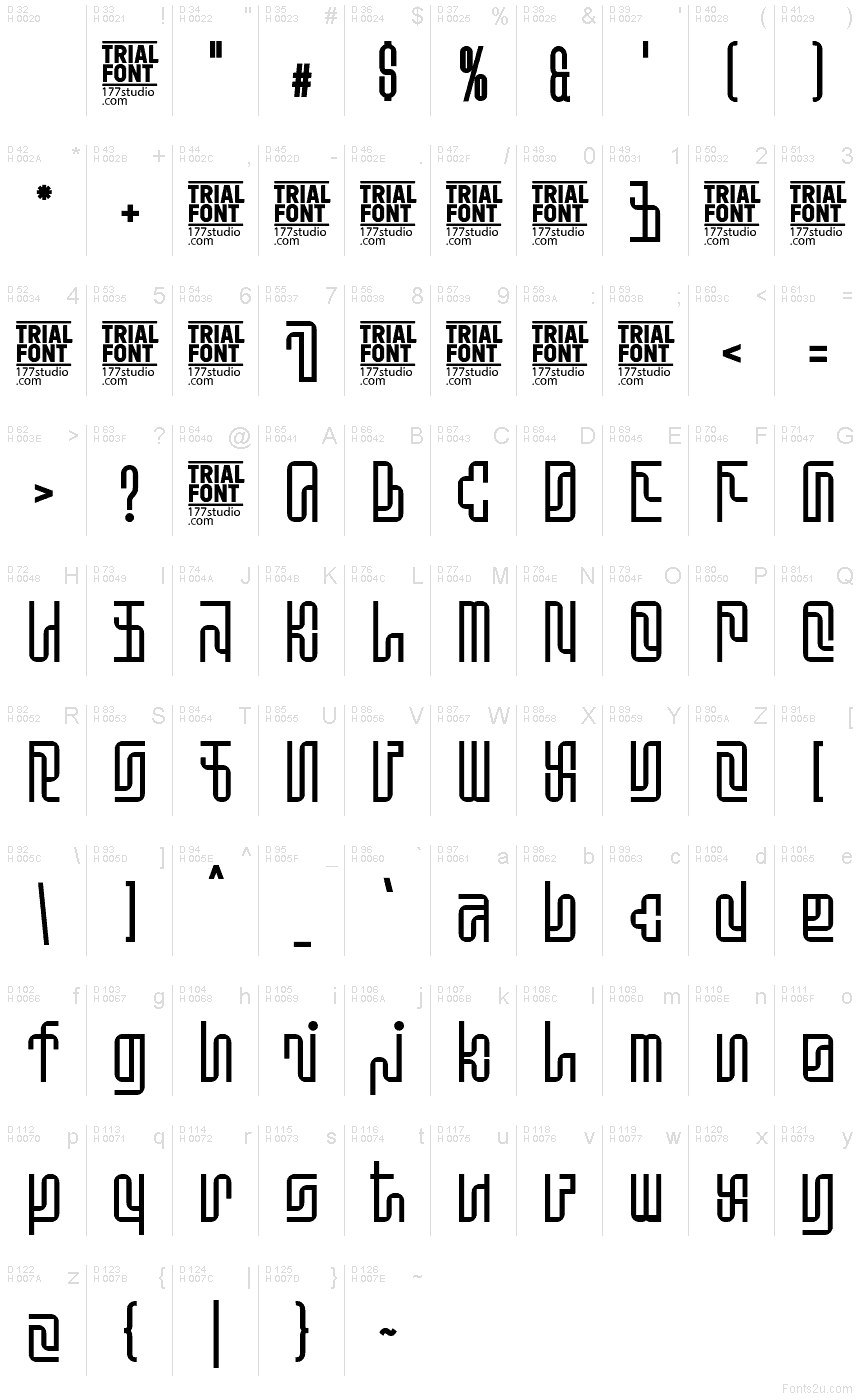
ABSTRACT ARTISTIC DEMO Regular
Abstract Artistic font by 177Studio is a free decorative display typeface that turns every word into a looping, maze-like graphic. Its bold, single-weight outlines twist and interlock with rounded corners and tight inner spaces, creating a rhythm that feels both digital and hand-drawn. Letters look like they’ve been piped in thick ink or molded from soft plastic, giving headlines a chunky, tactile presence on the page or screen.
Using Abstract Artistic, you can turn short phrases into logolike symbols that grab attention instantly. This free font shines on music and event posters, experimental branding, gaming titles, streetwear graphics, and eye-catching social posts. Keep it large and airy, and pair it with a simple geometric sans-serif in smaller text so the intricate shapes can breathe and stay legible.